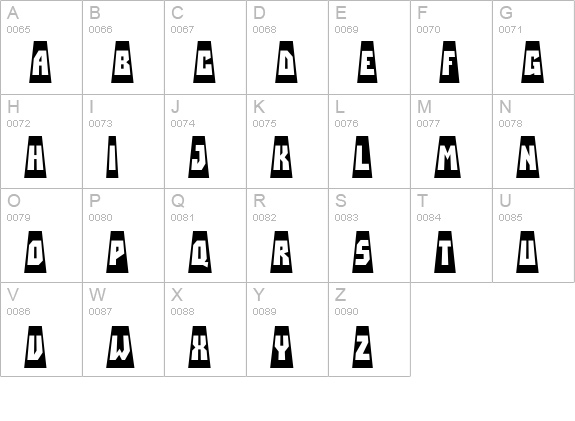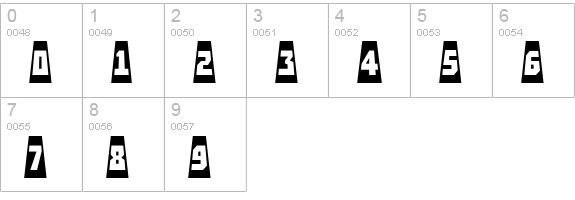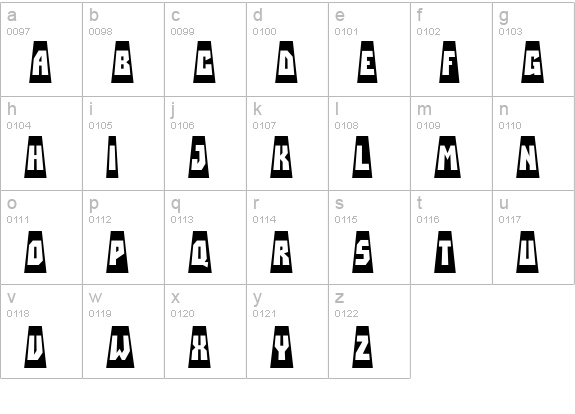
a_SimplerCmCtAbv Bold Font Details
a_SimplerCmCtAbv Bold is a strong, high-contrast variant in the a_SimplerCmCtAbv typeface family \xE2\x80\x94 well suited to headlines, attention-grabbing titles, and strong calls-to-action.
SimplerCmCtAbv Bold is a modern and sleek font that exudes confidence and sophistication. Its clean lines and bold appearance make it perfect for headlines, titles, and other attention-grabbing text. This versatile font is ideal for a wide range of design projects, from branding and advertising to posters and packaging. Best of all, SimplerCmCtAbv Bold is available for free download at FontsMarket.com. Take advantage of this fantastic offer and add a touch of elegance to your designs with this stylish font today!